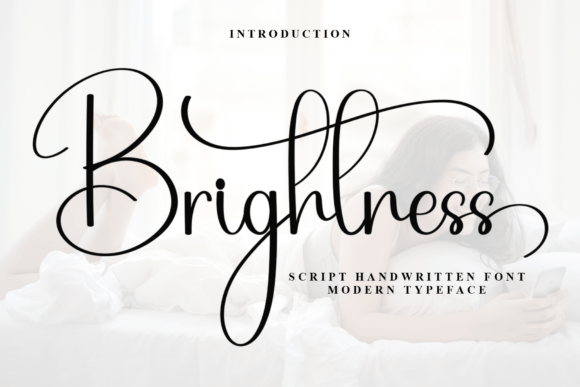
The Brightness Font: A Beautiful Handwritten Style for Creative Projects
Have you ever been in the middle of a design project, and suddenly, you just can’t seem to find the right font? I recall a particularly frustrating experience while working on a branding project for a boutique client. The brief required a unique, handwritten font that would capture the essence of their luxury products. After hours of searching, I stumbled upon the Brightness font, and it was love at first sight! ✨ In this article, I’ll share my experience with this beautiful font, its features, and how to make the most of it in your creative projects.
An Honest Review of Brightness Font
- ✨ Elegant and sophisticated handwritten style, perfect for high-end branding and luxury products
- ✅ Highly versatile, suitable for various design applications, including posters, book covers, and merchandise
- 🔥 Beautifully crafted to add a touch of personality to any design project
While Brightness font is an excellent choice for many design projects, there are a few minor limitations to consider:
- ⚠️ Some users may find the font a bit too ornate for very small text sizes or body text
- 🤔 Limited availability of certain OpenType features, such as ligatures or stylistic alternates, in certain software
The Story Behind Brightness Font
Brightness font was designed with the intention of creating a beautiful, elegant handwritten style that would capture the essence of luxury products. The designer aimed to craft a font that would be highly versatile, suitable for various design applications, from branding and advertising to posters and merchandise.
Q: What type of projects is Brightness font suitable for?
A: Brightness font is suitable for a wide range of projects, including branding, advertising, poster design, book covers, headlines, prints, merchandise, websites, magazines, album covers, and quote designs.
Q: Is Brightness font available in multiple languages?
A: Yes, Brightness font supports multiple languages. However, the availability of certain characters and glyphs may vary.